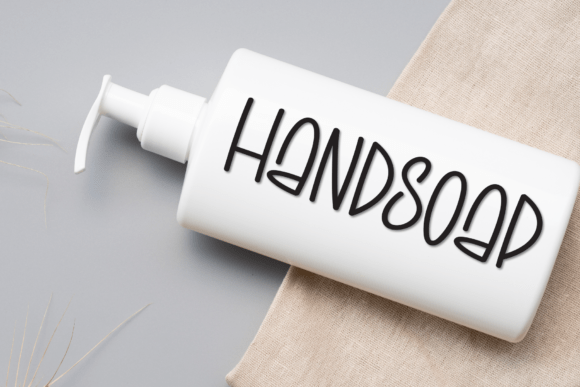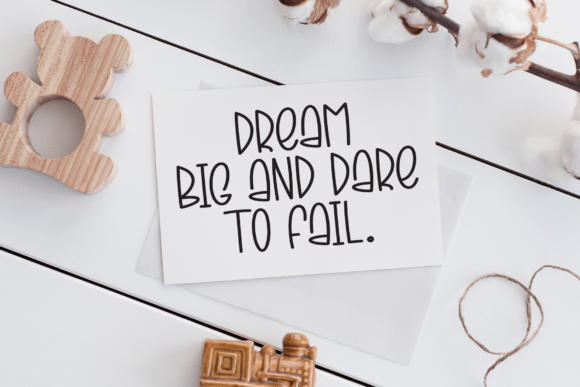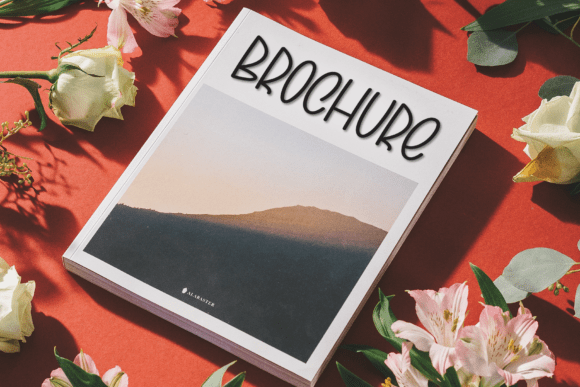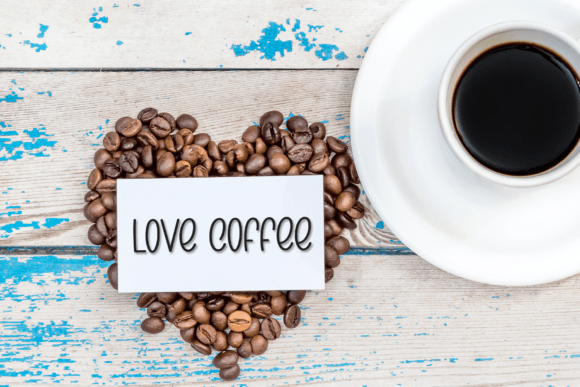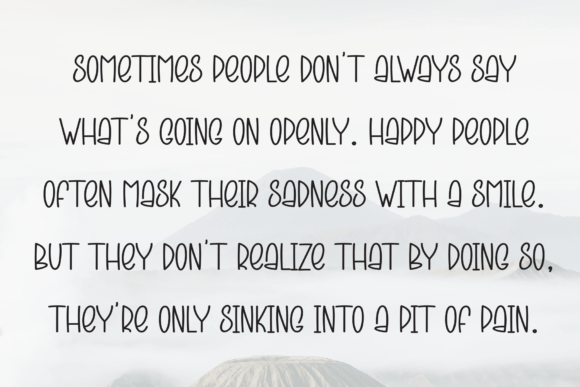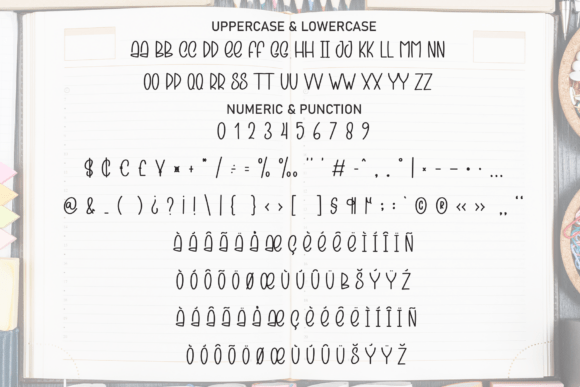
Introducing Book Comic Font: The Perfect Blend of Simplicity and Friendliness
In the world of typography, fonts play a crucial role in conveying the tone and personality of a brand or design. For designers and crafters looking for a font that combines simplicity with a friendly, approachable vibe, Book Comic Font is an excellent choice. This casual and neat display font is designed to capture the essence of modern handwritten typography with a polished finish, making it ideal for a wide range of applications.
Clean Lines, Balanced Letterforms, and Subtle Rounded Edges
Book Comic Font boasts clean lines, balanced letterforms, and subtle rounded edges that give it a unique and distinctive look. The font’s clean structure ensures clarity, while the balanced letterforms provide a sense of harmony and stability. The subtle rounded edges add a touch of warmth and friendliness, making the font perfect for designs that require a personal and approachable feel.
Ideal for Branding, Headlines, Packaging, and Digital Content
Book Comic Font is a versatile font that can be used in a variety of contexts, including branding, headlines, packaging, and digital content. Its crisp structure and versatile style make it an excellent choice for designers and crafters looking to add a warm and inviting touch to their designs. Whether you’re creating a logo, brochure, or social media post, Book Comic Font is sure to deliver clarity and charm in equal measure.
Key Features of Book Comic Font
- Clean and simple design: Book Comic Font features a clean and simple design that ensures clarity and legibility.
- Balanced letterforms: The font’s balanced letterforms provide a sense of harmony and stability, making it perfect for designs that require a professional touch.
- Subtle rounded edges: The subtle rounded edges add a touch of warmth and friendliness, making the font perfect for designs that require a personal and approachable feel.
- Versatile style: Book Comic Font is a versatile font that can be used in a variety of contexts, including branding, headlines, packaging, and digital content.
Benefits of Using Book Comic Font
Using Book Comic Font in your designs offers a range of benefits, including:
- Improved legibility: The font’s clean structure and balanced letterforms ensure excellent legibility, even at small sizes.
- Increased versatility: Book Comic Font can be used in a variety of contexts, making it a great addition to any designer’s font library.
- Enhanced creativity: The font’s unique and distinctive look provides a creative spark, allowing designers to experiment with new and innovative design ideas.
- Professional finish: Book Comic Font’s polished finish gives designs a professional and high-quality look, perfect for clients who demand the best.
Tips for Using Book Comic Font
To get the most out of Book Comic Font, here are a few tips to keep in mind:
- Use it for headlines and titles: Book Comic Font is perfect for headlines and titles, where its clean structure and balanced letterforms can really shine.
- Experiment with different sizes: The font’s versatility means it can be used at a range of sizes, from small captions to large headlines.
- Pair it with other fonts: Book Comic Font pairs well with other fonts, making it easy to create unique and interesting typography combinations.
- Use it for digital content: The font’s clean structure and legibility make it perfect for digital content, including social media posts, blogs, and websites.
Book Comic Font is a fantastic addition to any designer’s font library. Its unique blend of simplicity and friendliness makes it perfect for a wide range of applications, from branding and headlines to packaging and digital content. With its clean lines, balanced letterforms, and subtle rounded edges, Book Comic Font is sure to deliver clarity and charm in equal measure. So why not give it a try and see how it can elevate your designs?